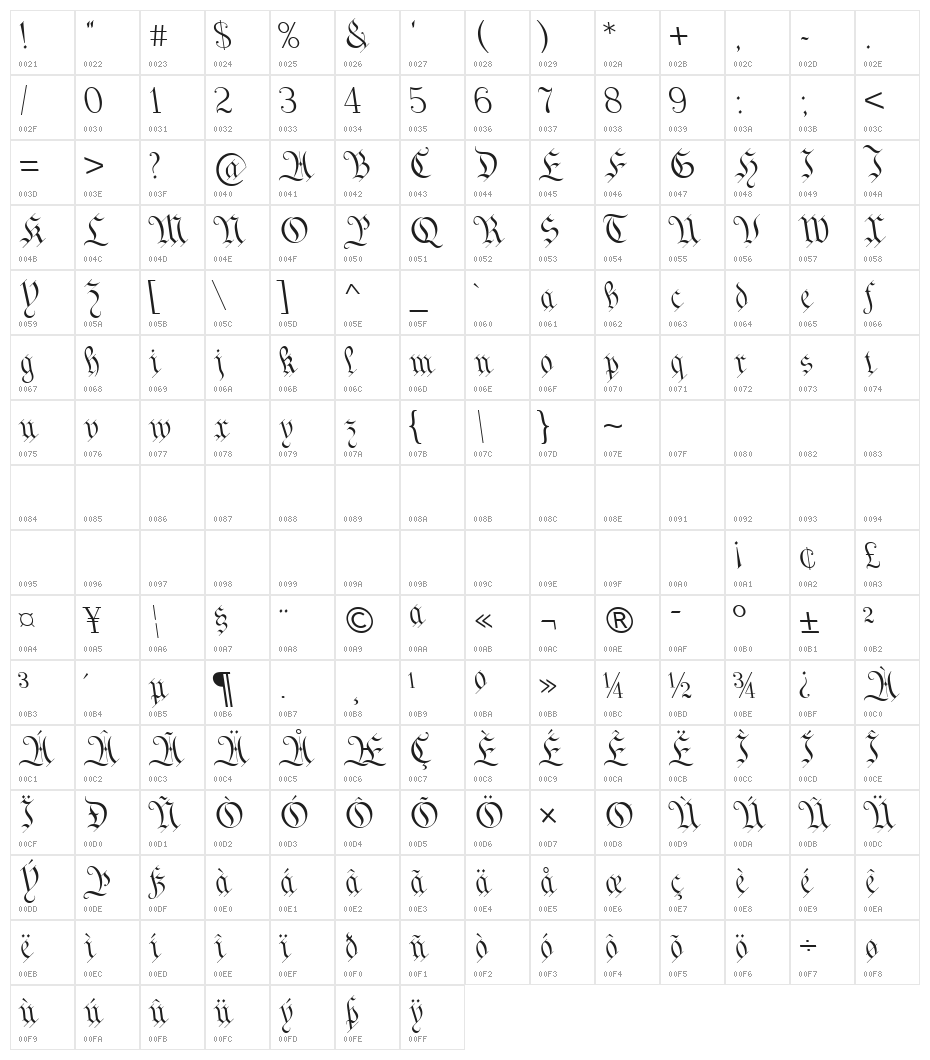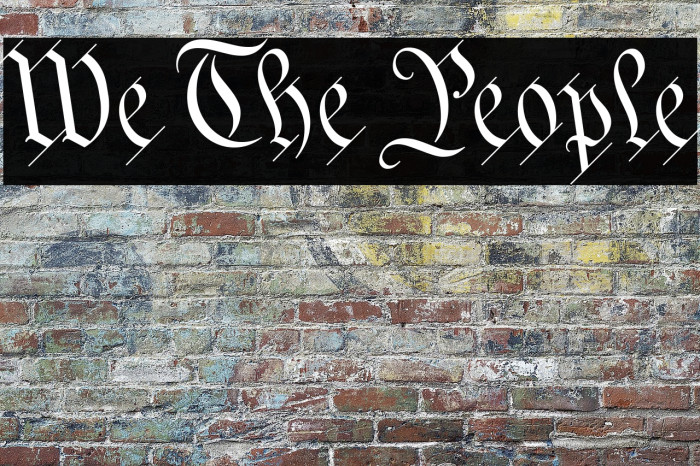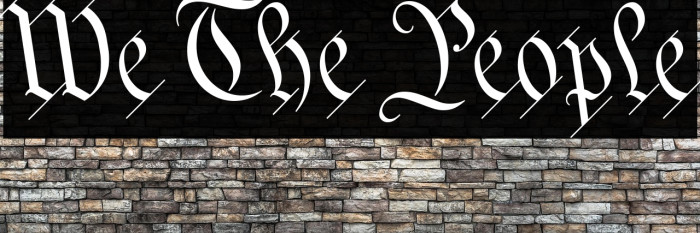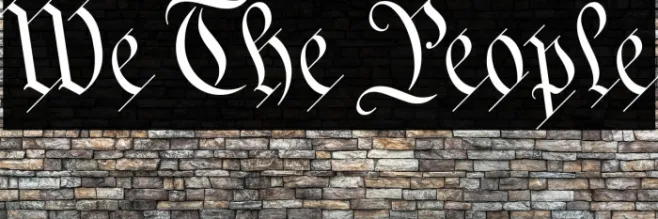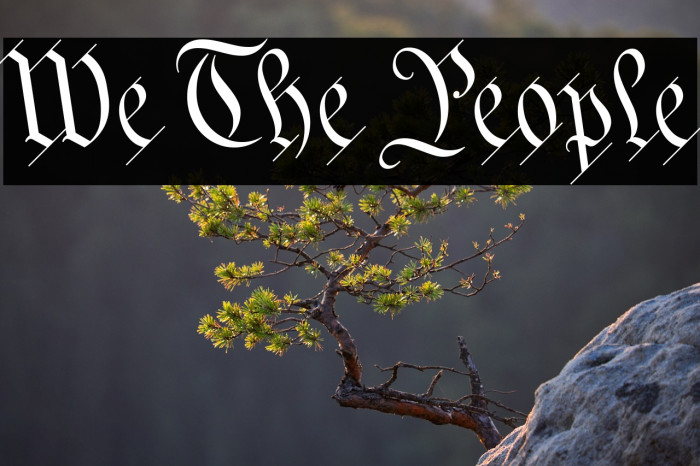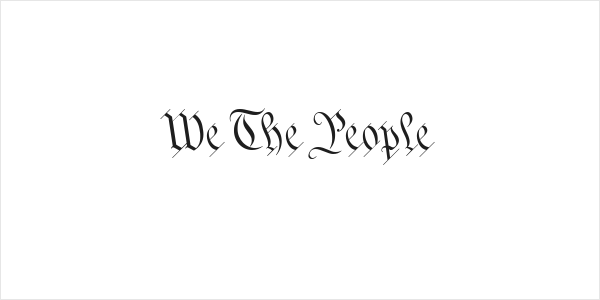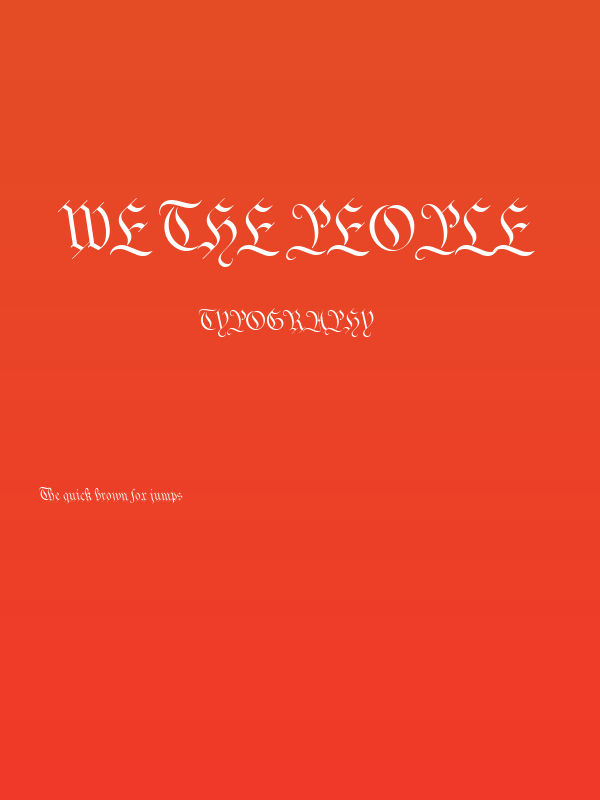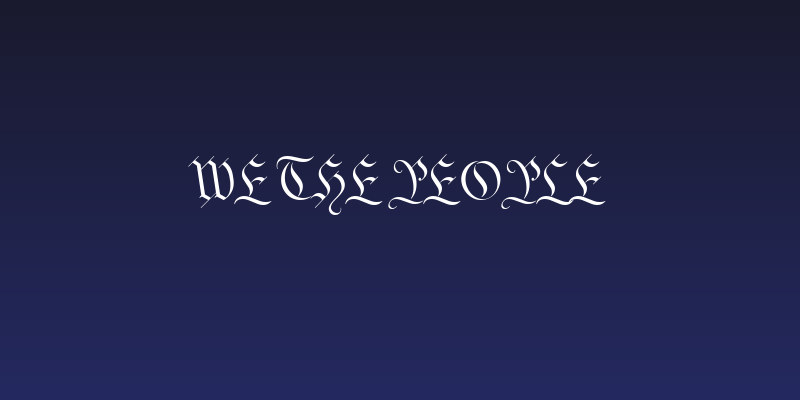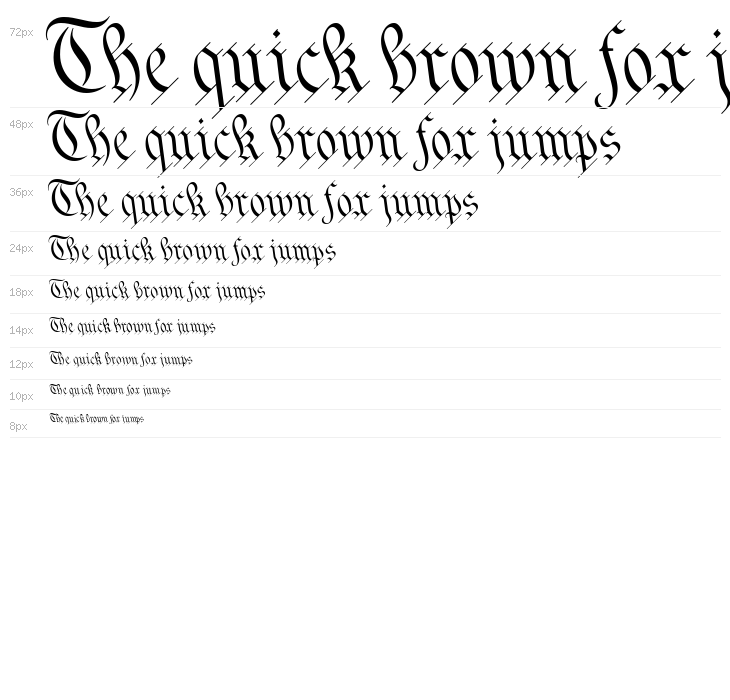
We The People Font
We The People Description
This font exudes a classic and historical feel, reminiscent of traditional calligraphy and old manuscripts. The characters are ornate with intricate details, featuring sharp, angular strokes and elegant flourishes. The uppercase letters are particularly elaborate, with a strong presence and a sense of grandeur. The lowercase letters maintain the same decorative style, ensuring consistency throughout. Numbers and special characters are designed to match the overall aesthetic, making them suitable for decorative purposes. The font's style is highly decorative, making it ideal for projects that require a touch of elegance and sophistication.
| Proposed Projects | Ideal for wedding invitations, certificates, historical documents, and branding that requires a touch of elegance. |